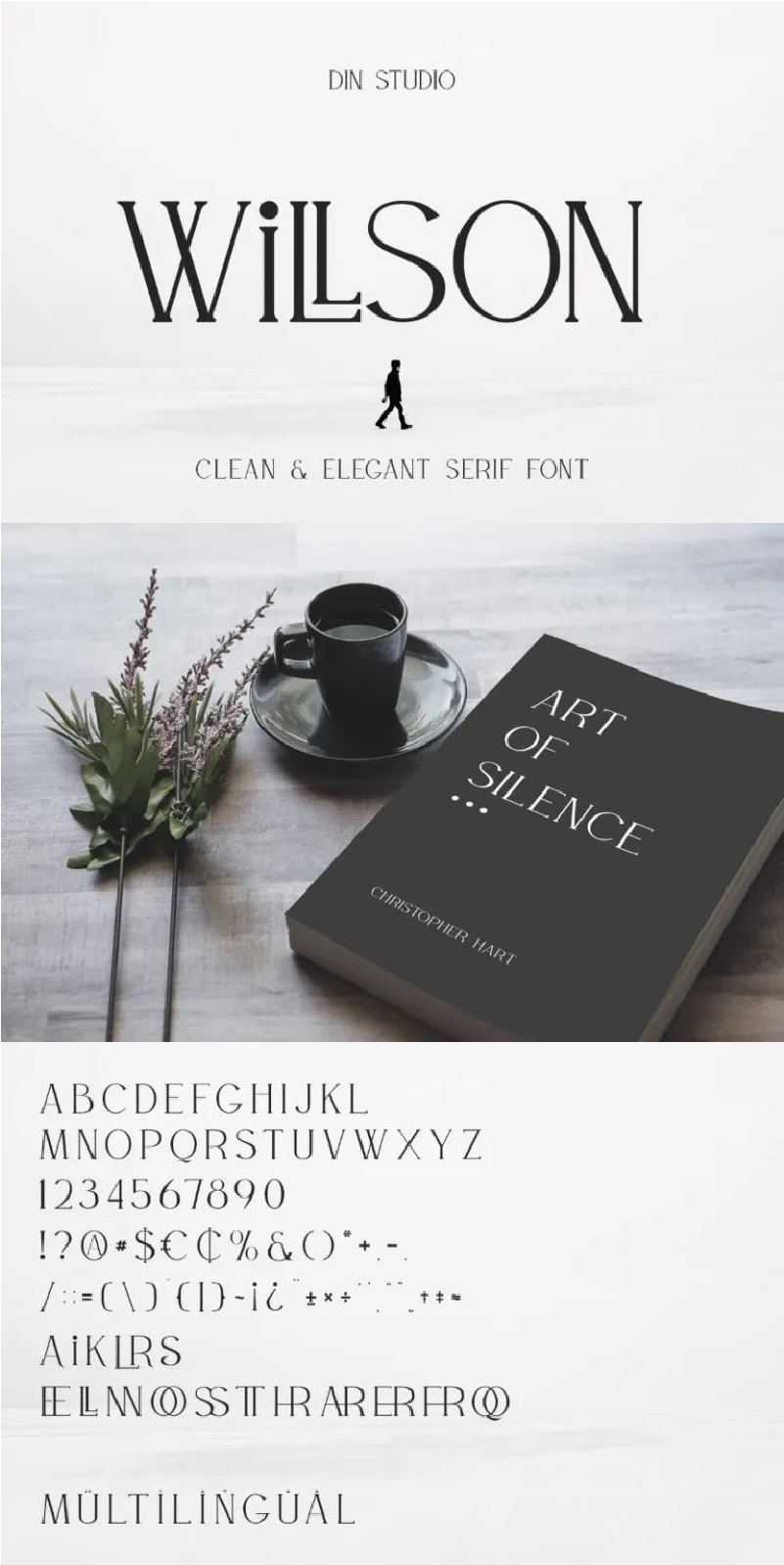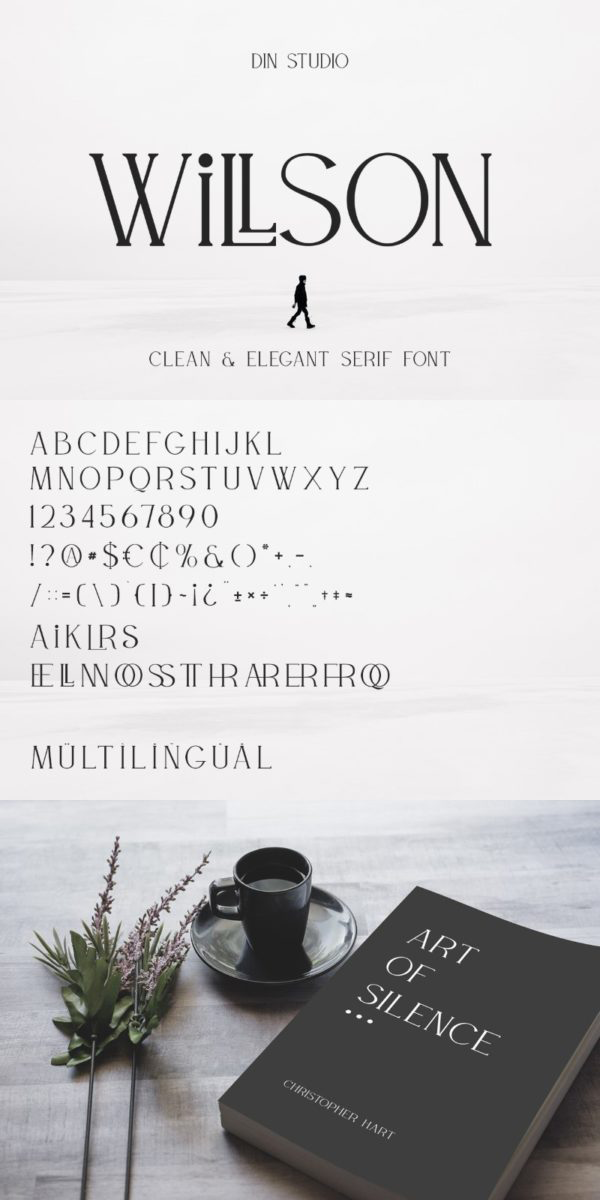
Willson Font
About Willson
Willson designed with a modern and clean style. It’s suitable for branding, logo, printing, social media campaign, cards, ads, and many other designs. See the previews above to get some inspiration on how you can use them. Enjoy the font!
- Accents (Multilingual Characters)
- 6 Alternates
- 11 Ligatures
- Numerals and Punctuation (OpenType Standard)